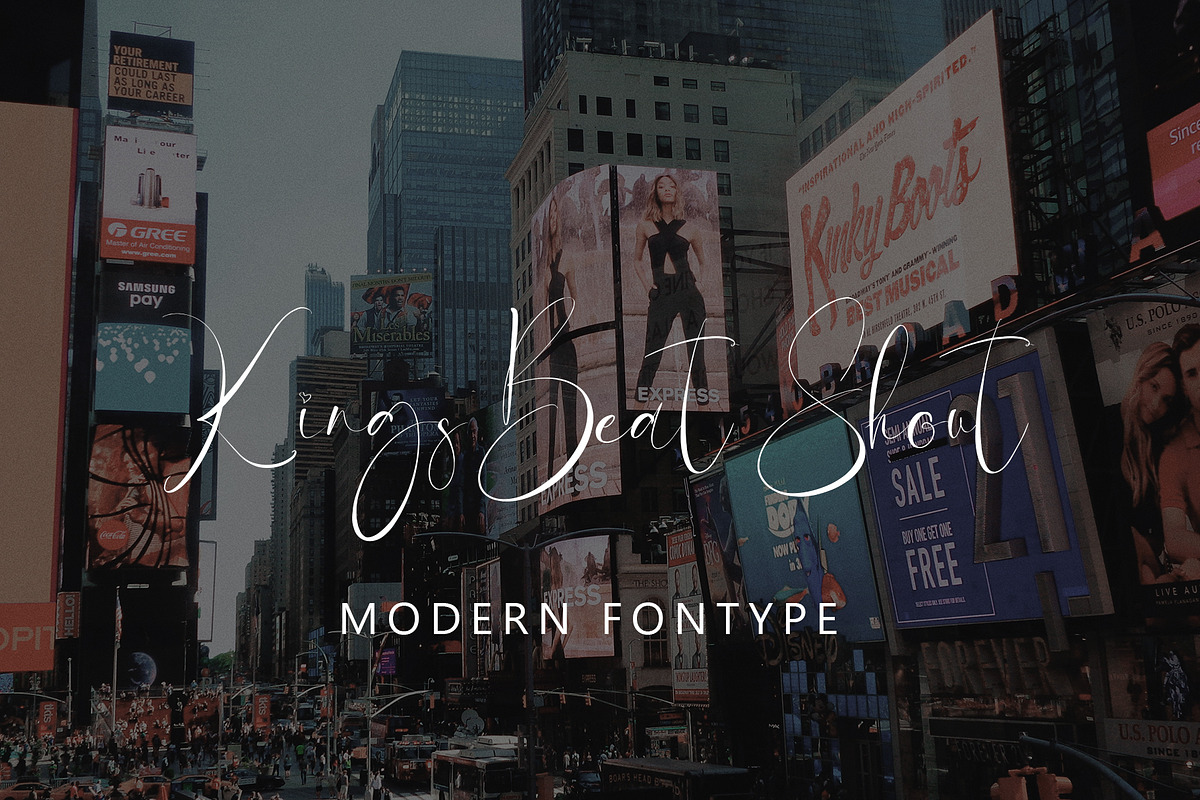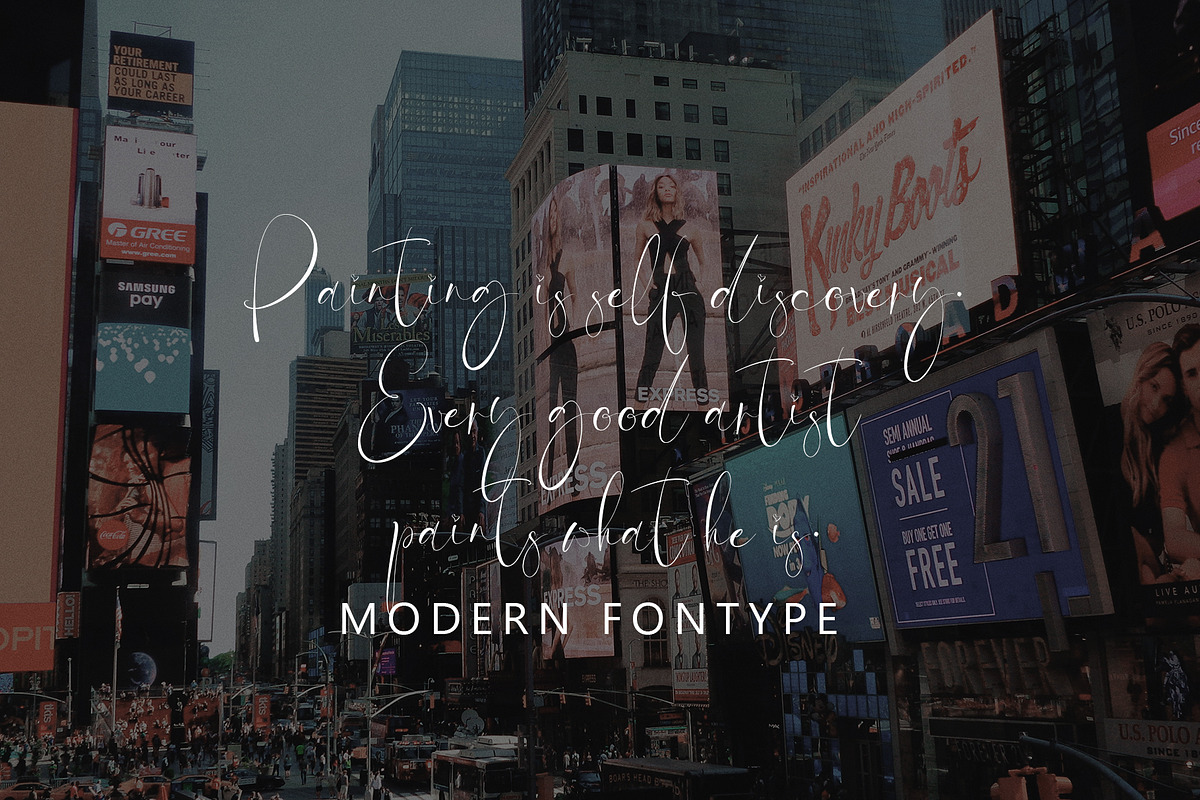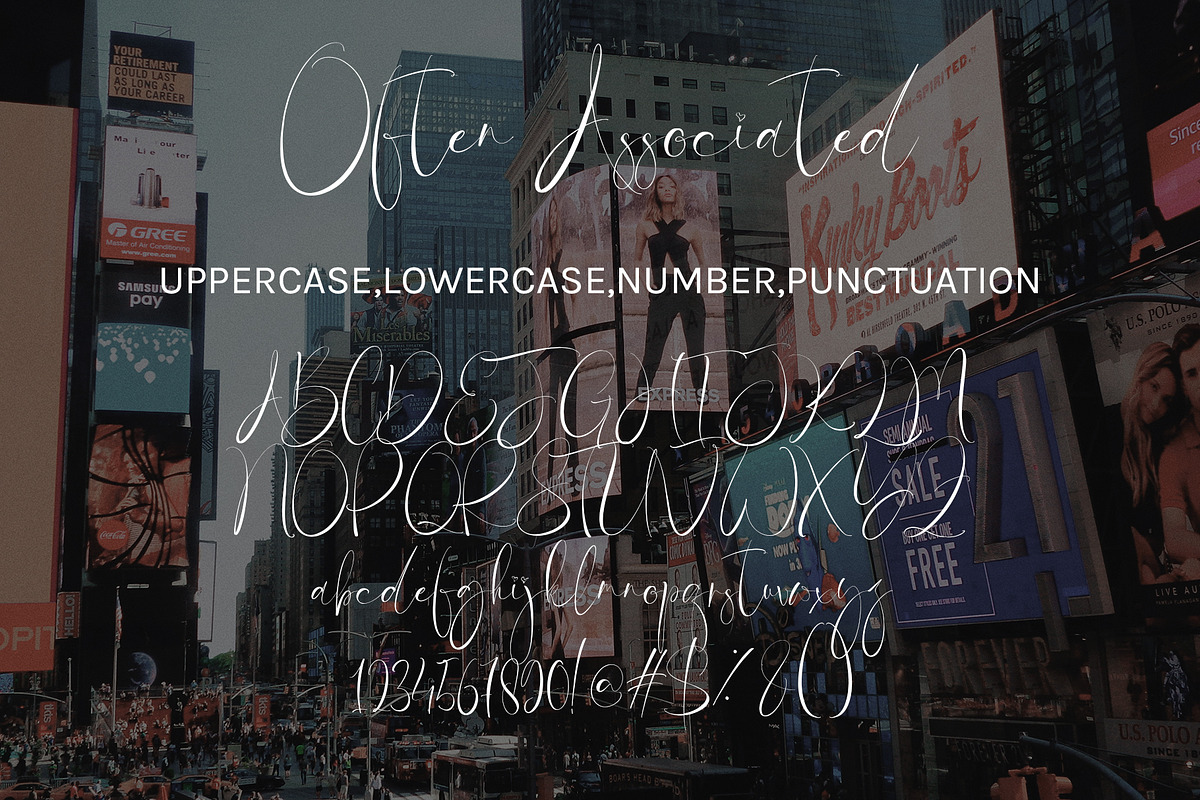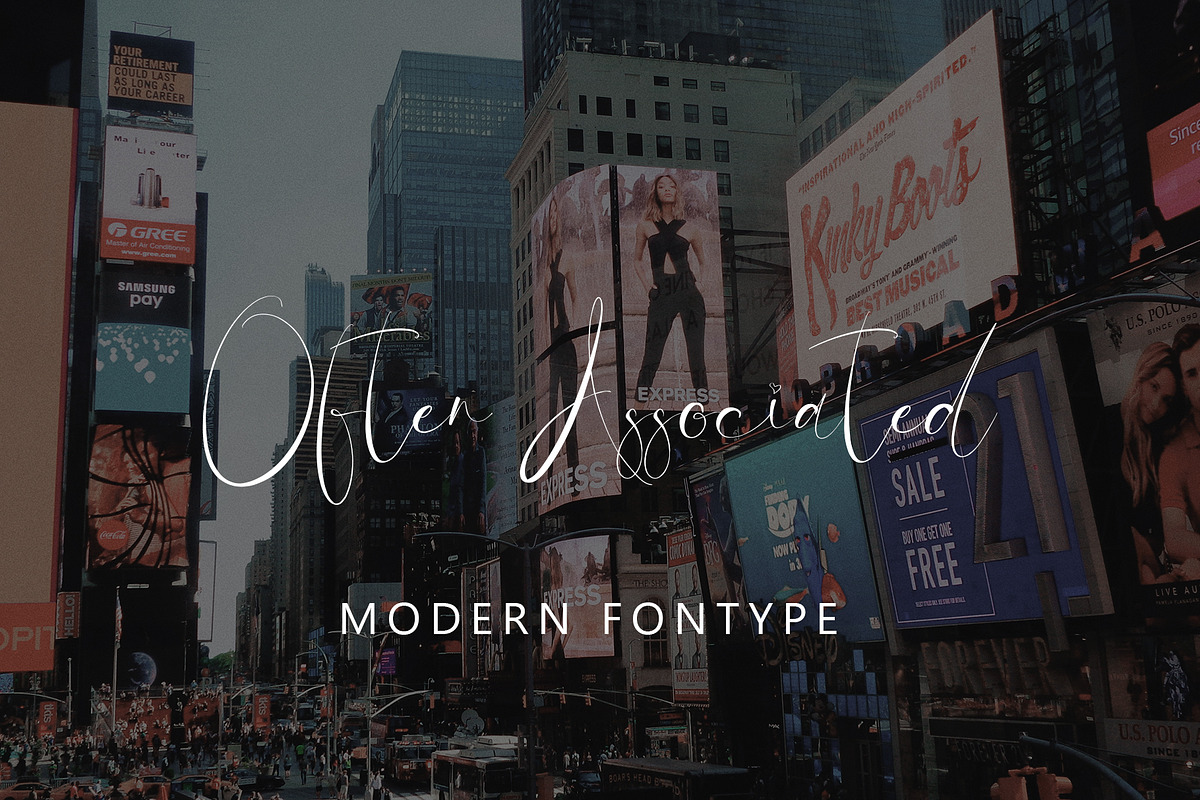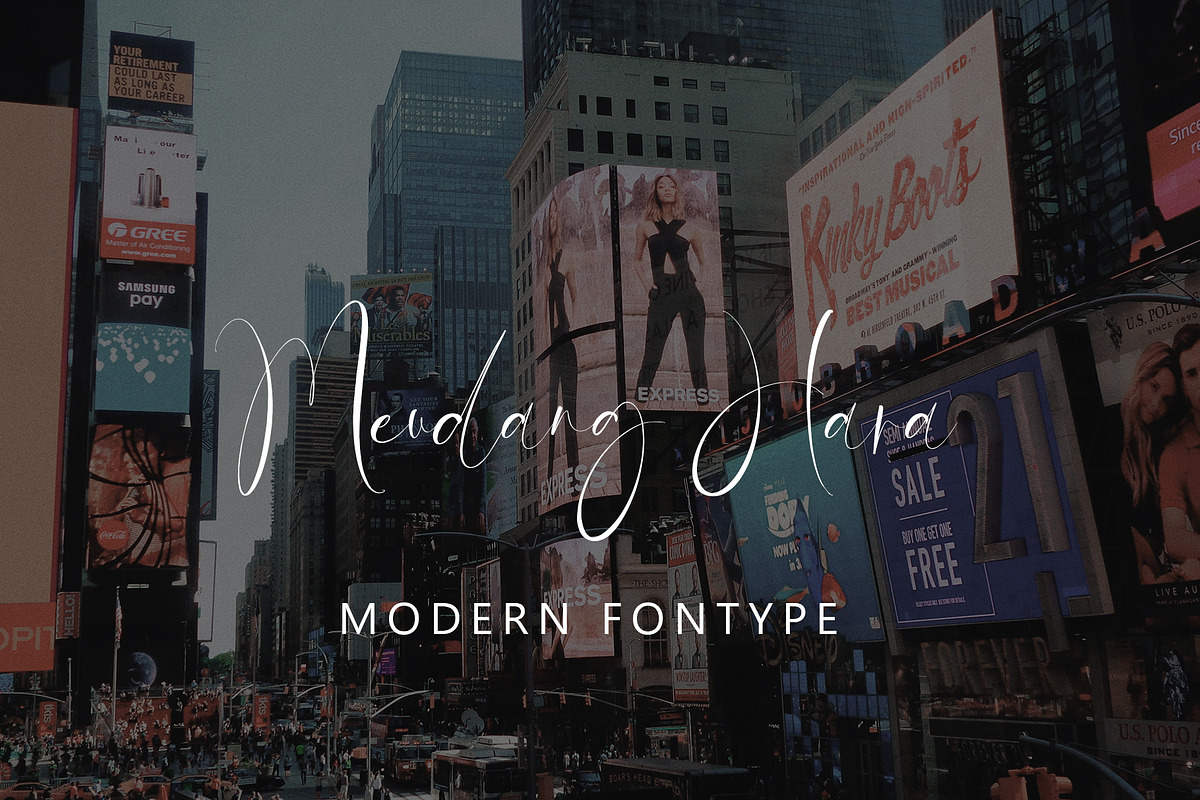
Often Associated
Often Associated with new style, this font will perfect for many different project ex: quotes, logo, blog header, poster, banding, letter, invitation, stationery, etc...